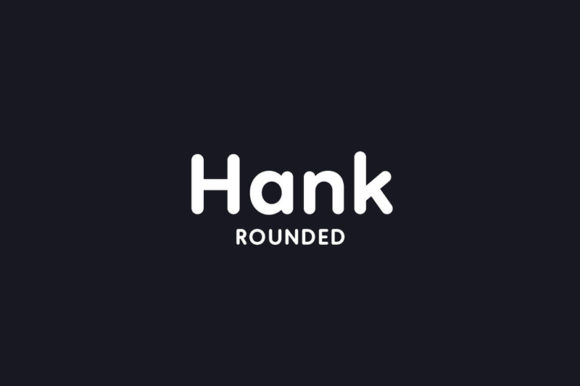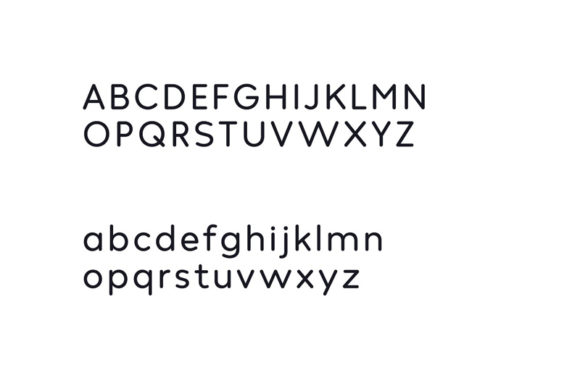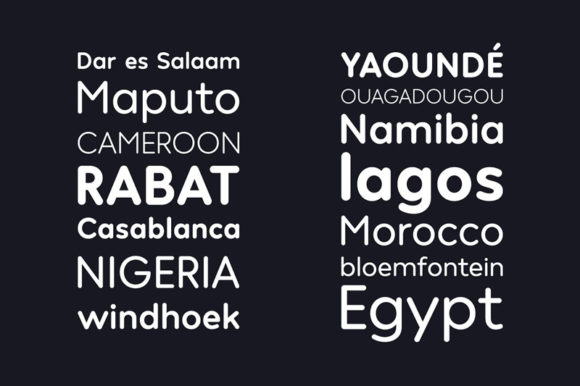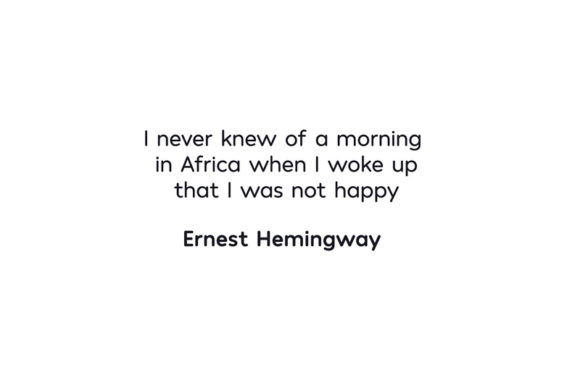
Hank Rounded Font
About the Hank Rounded Font
Discover the charm of Hank Rounded Font. This font is a perfect blend of modern aesthetics and classic appeal. Calm. Cool. Collected. Hank is a simply rounded sans serif font with a casual feel. Use it to add a calm feel to any design idea.
Hank Rounded excels in display applications such as headlines, logos, and short-form text on posters or packaging. Its rounded forms contribute to a friendly, approachable aesthetic, making it ideal for brands focused on approachability and calm sophistication. However, its low x-height makes it less suitable for body text or lengthy paragraphs where readability is paramount. Avoid using it for UI elements or situations requiring small sizes.
Pairing Hank Rounded with a contrasting typeface enhances its visual impact. A crisp geometric sans-serif like Futura provides a modern counterpoint, while a warmer serif like Garamond adds a touch of classic elegance. For a more playful feel, consider pairing it with a handwritten script font, but ensure legibility remains a priority.
Hank Rounded’s overall personality is best described as friendly and modern, with a subtle touch of sophistication. Its rounded forms convey approachability without sacrificing a clean, contemporary feel. It’s a versatile choice, but careful consideration of context is crucial to maximize its effectiveness.
Hank Rounded Font Usage Examples
Hank Rounded Font Example